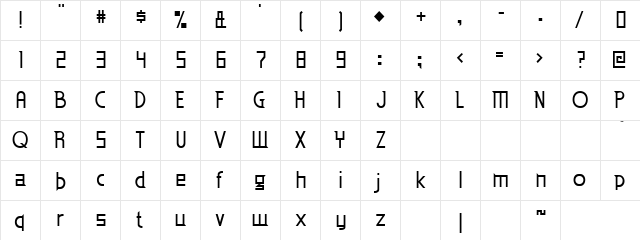
Edict Far Regular
Design Context for Edict Far Typeface
Edict Far is a composed and adaptable typeface that performs quietly and consistently across a wide range of design contexts.